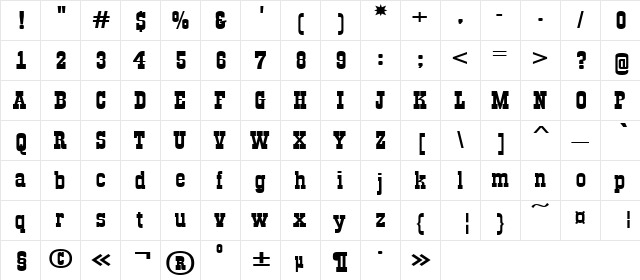
a_GildiaExp Bold
Design Context for a_GildiaExp Typeface
a_GildiaExp takes a measured approach to typography — its balanced proportions and neutral character make it a reliable workhorse for both digital and print work. Its bold stroke weight gives it real presence on the page.